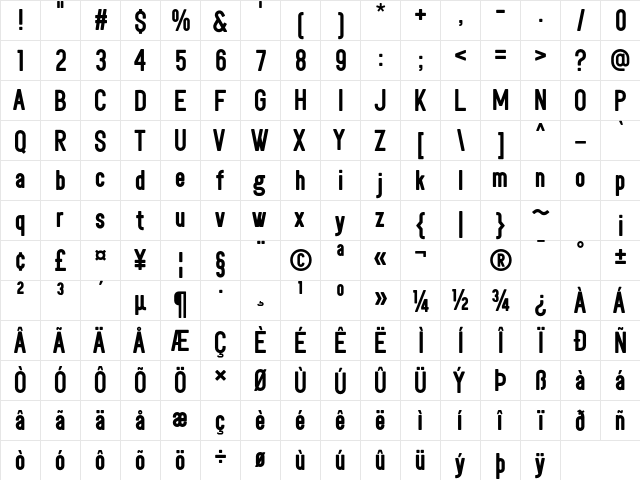
Shakerato-PERSONAL Bold Font Preview
Shakerato-PERSONAL Bold
Shakerato-PERSONAL Bold Font Details
| Foundry | Vilova |
| Designer | Fikri F Hasan |
Design Context for Shakerato-PERSONAL Typeface
Shakerato-PERSONAL offers clean, dependable letterforms without strong stylistic allegiance, making it a practical choice for designers who need flexibility. The heavy weight commands attention and anchors typographic hierarchies.